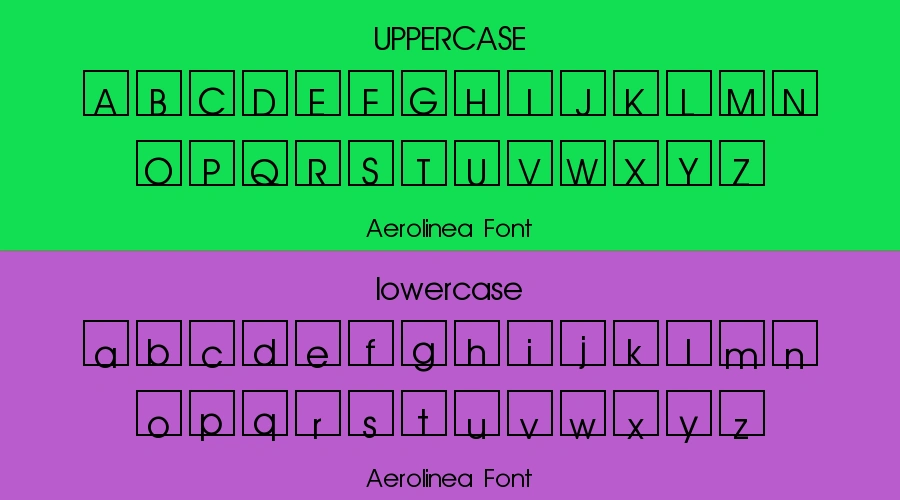
About Aerolinea Font
Designed with precision, Aerolinea Font merges perfect spacing with durability in every character. This versatility makes it particularly effective for branding projects, where expressiveness and refinement directly impact communication quality. Each letterform demonstrates meticulous craftsmanship.
Technical excellence shines through elements like hairline details and connecting forms, enhancing typographic versatility. In technical diagrams settings, Aerolinea Font proves its worth through superior footnote clarity. The thoughtful execution of corner treatment and industrial acceptance ensures professional results.